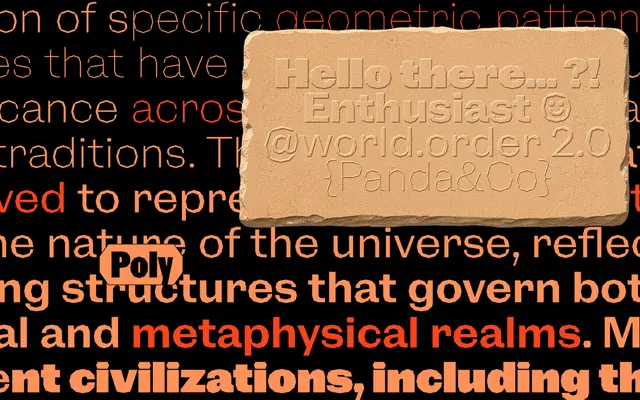
NaN Rage Poly
NaN · Hugues Gentile, Fanny Hamelin, Fadhl Haqq, Léon Hugues, Jean-Baptiste Morizot, Luke Prowse, Florian Runge, Jolana Sýkorová · 2024
A curveless sans-serif across four widths and nine weights, each curve replaced by straight polygonal segments to produce a strikingly angular texture that shifts from subtle at heavy weights to visibly glitchy at lighter ones.
Part of the NaN Rage Typographic Universe, Poly strips every curve from a sans-serif skeleton and replaces them with chains of straight segments, an approach with roots in geometry, cubism and futurism without being reducible to any one of them. The effect is most dramatic in lighter weights, where the broken arcs produce a glitchy, almost digital noise, while heavier weights at small sizes read closer to a conventional grotesque. Details such as flat diamond periods and tittles reinforce the polygonal logic throughout, and the four-width range from Standard to XCondensed gives the family genuine versatility across headline and text contexts.
A curveless sans-serif where every curve has been replaced by straight polygonal segments, giving it a geometric and angular quality that sits between constructivist geometry and digital glitch aesthetics.